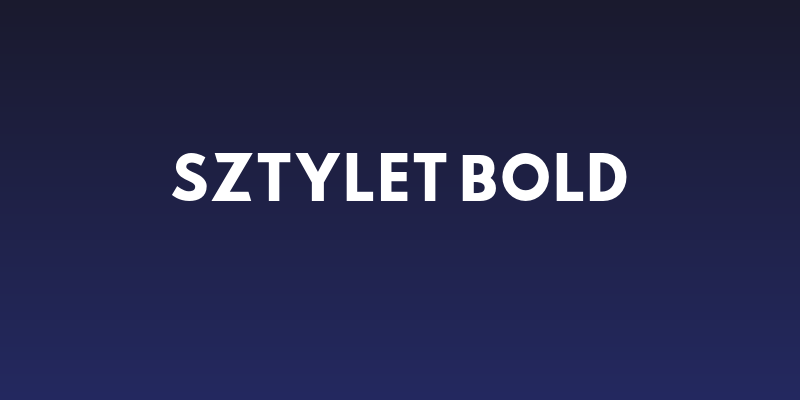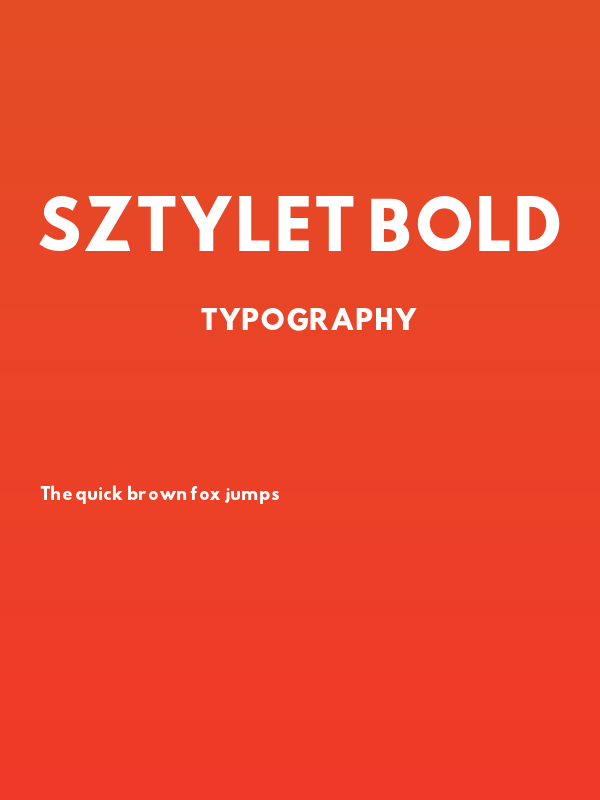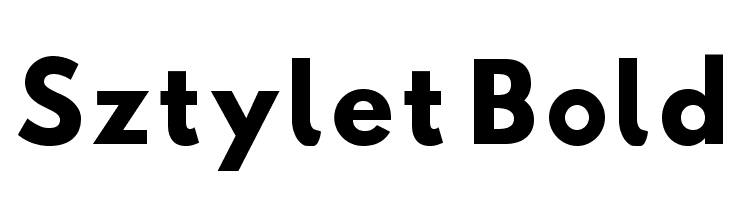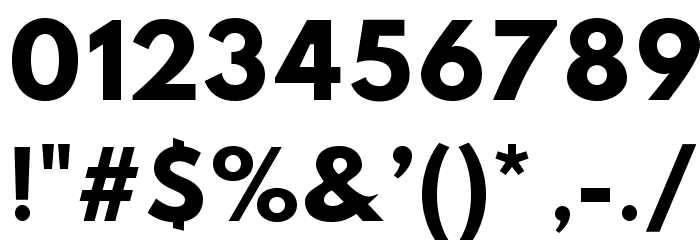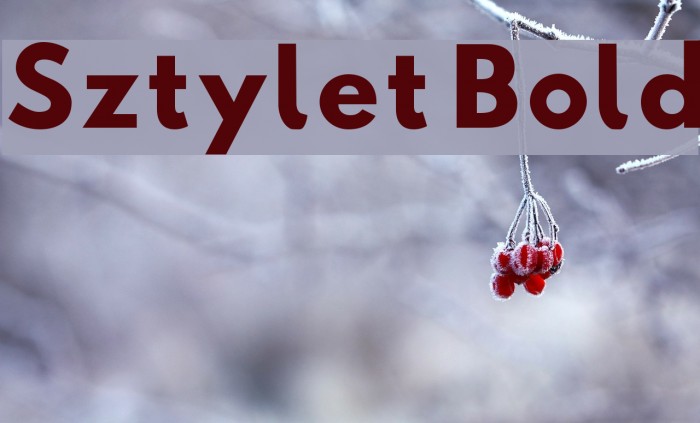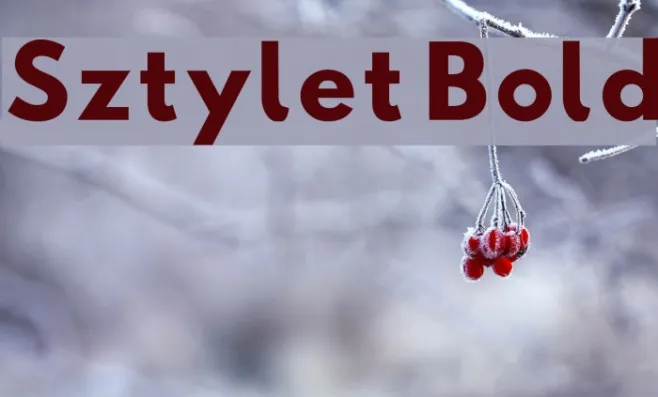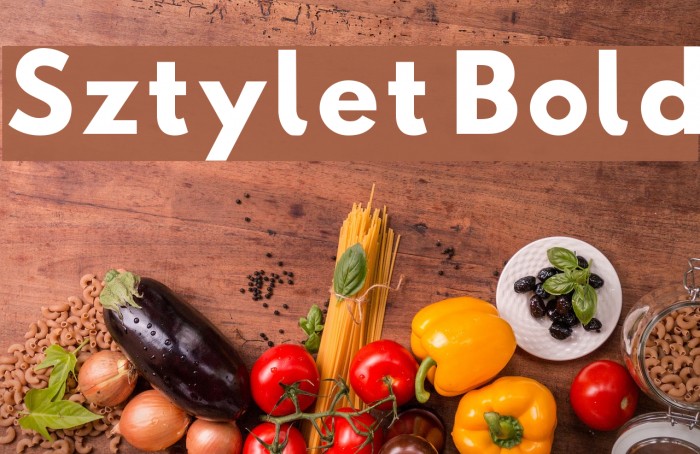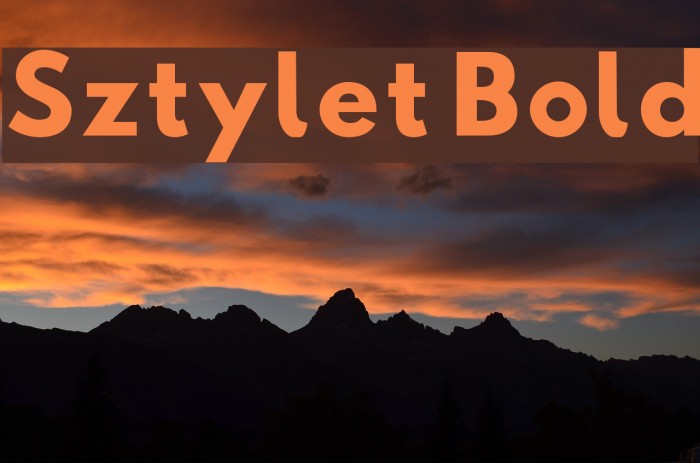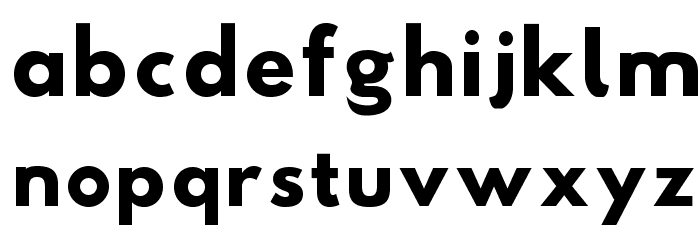
Sztylet Bold Font
Sztylet Bold Description
This font features a bold and modern design with clean, geometric shapes. The uppercase letters are strong and assertive, while the lowercase letters maintain a consistent weight, providing a harmonious balance. The numerals are clear and easy to read, making them suitable for various applications. The special characters are well-integrated, ensuring versatility in design projects. Overall, this font exudes a contemporary and professional feel, ideal for making a strong visual impact.
| Use Case | Headlines, Logos, Branding |
| Proposed Projects | Ideal for branding, advertising, headlines, and digital media where a bold statement is needed. |